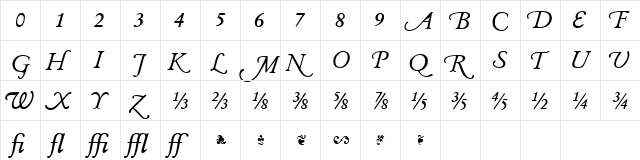
Garamand Classic Extras Bold Italic Font Preview
Design Context for Garamand Classic Extras Typeface
Garamand Classic Extras wears its vintage influences proudly, with letterforms that recall mid-century signage, classic packaging, and nostalgia-driven design. Its italic angle brings a sense of urgency and motion to the letterforms. The heavy weight commands attention and anchors typographic hierarchies.